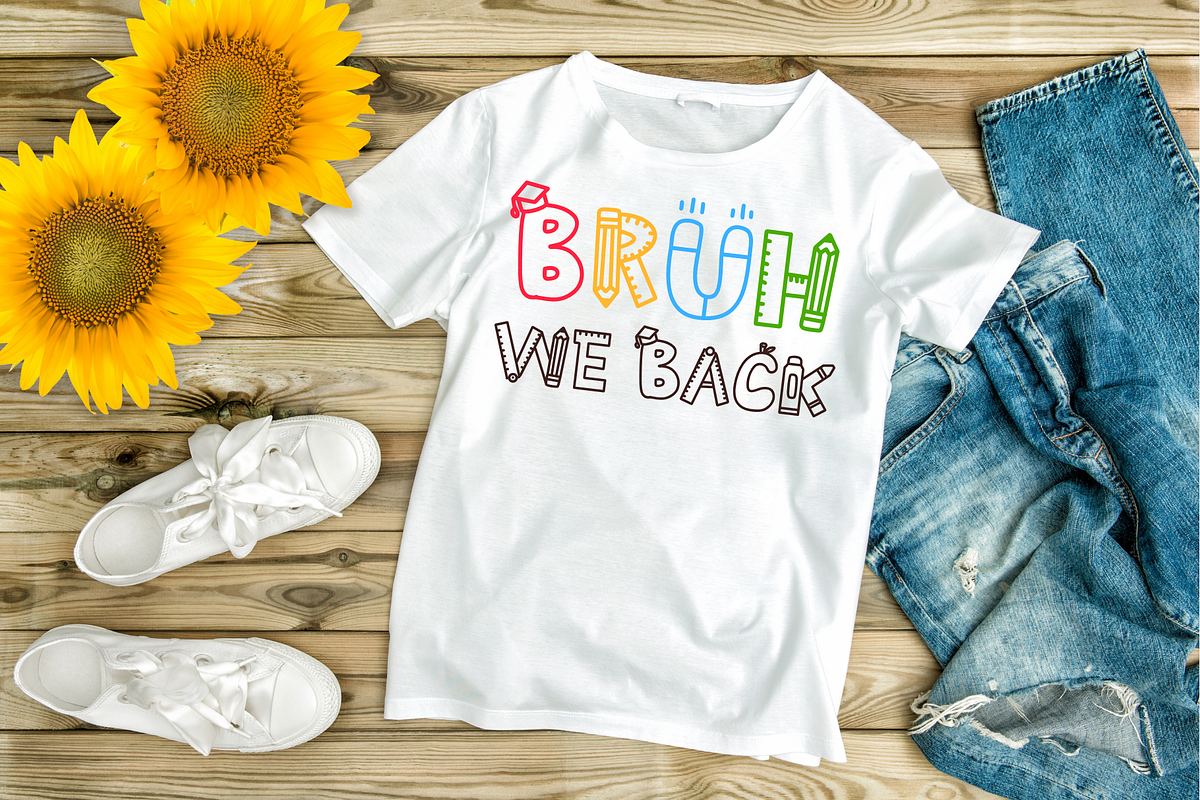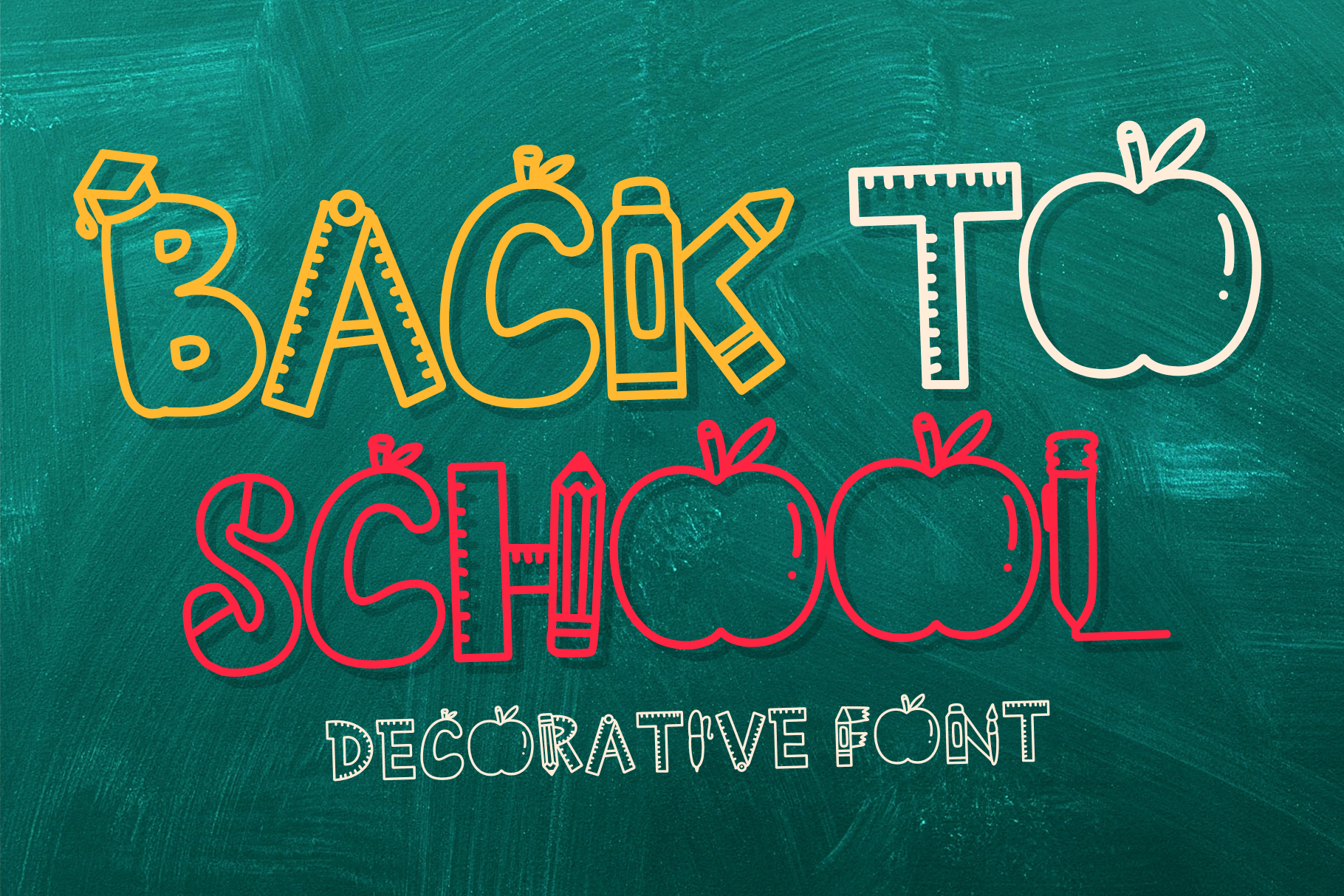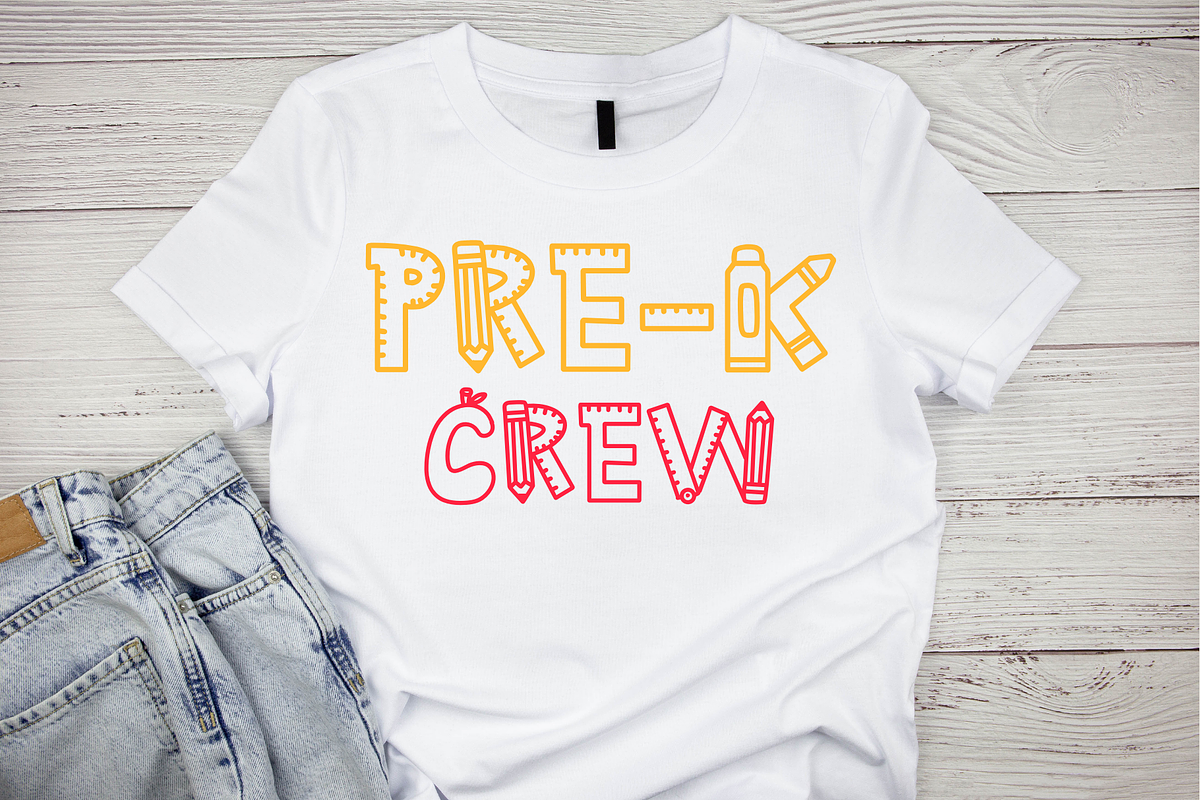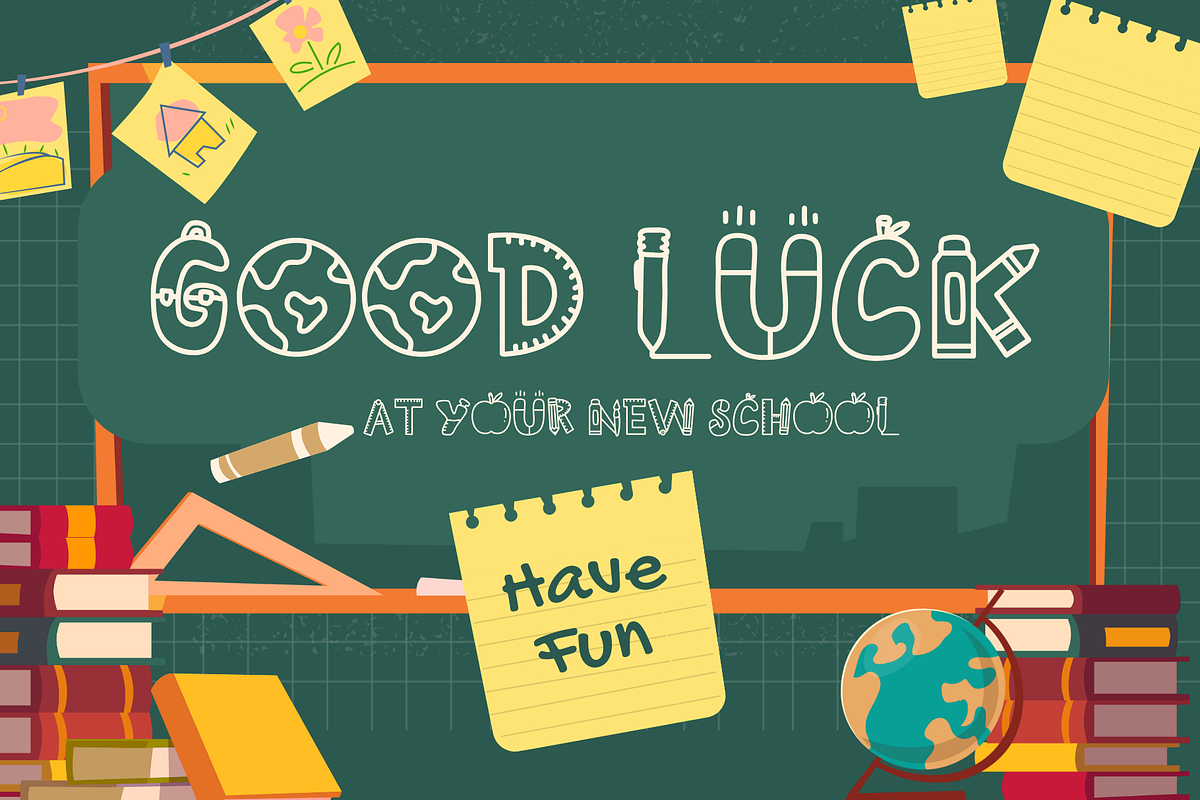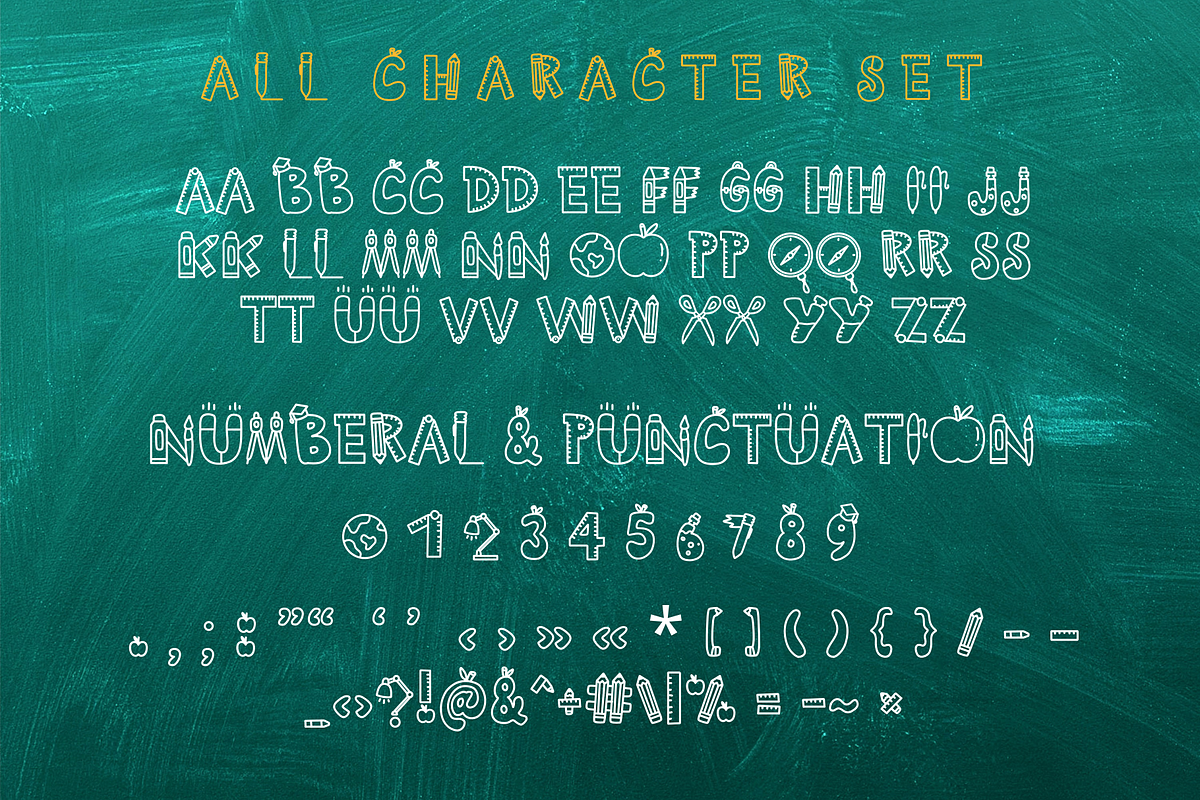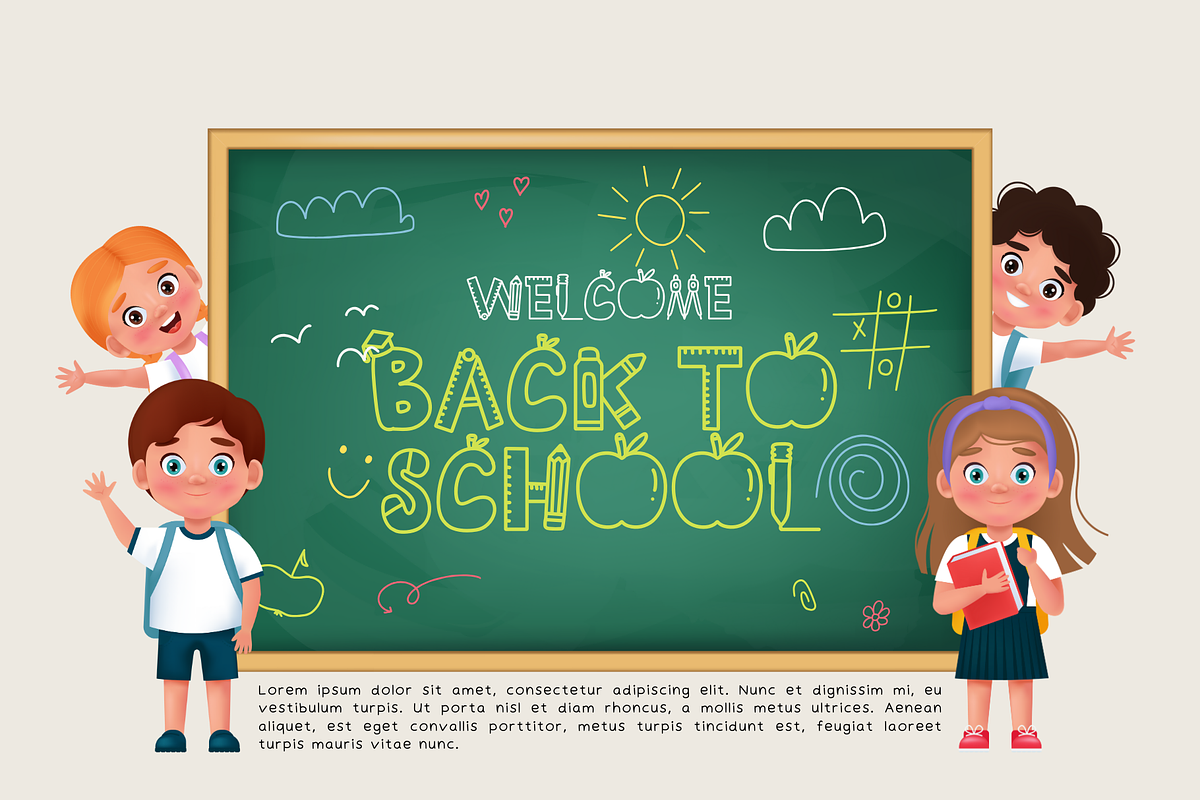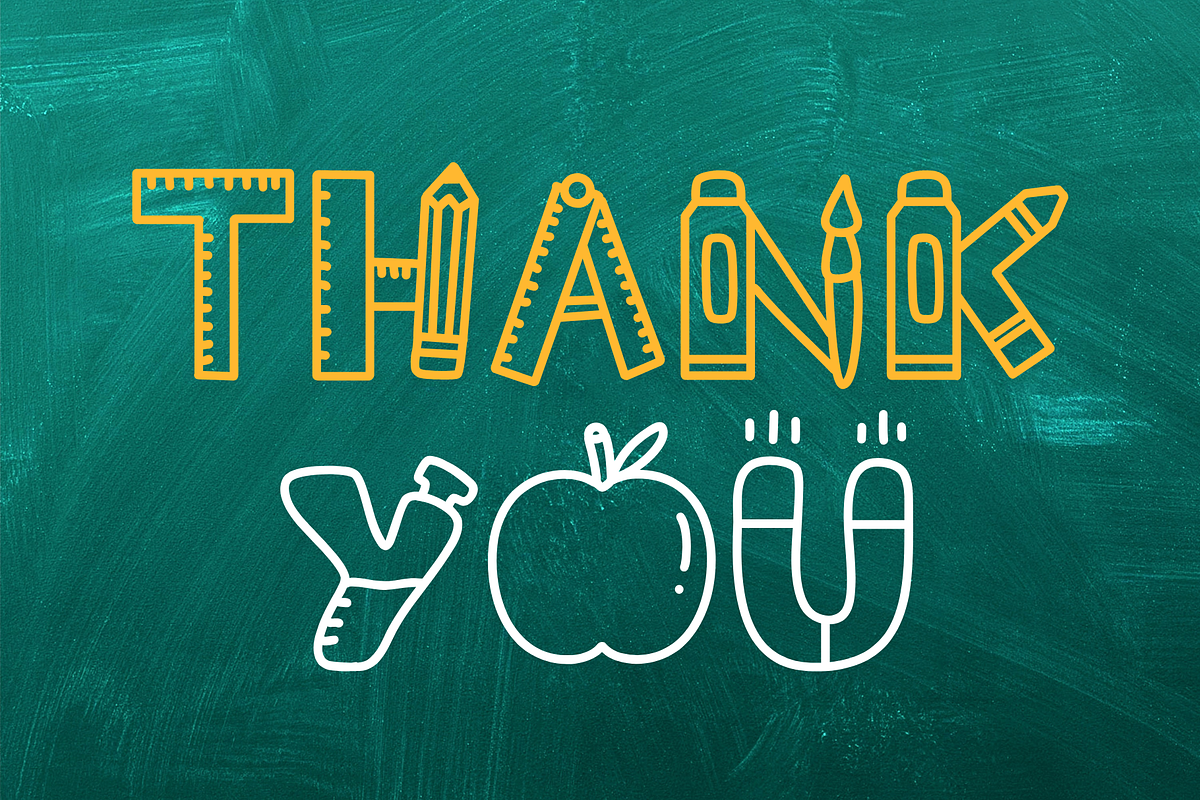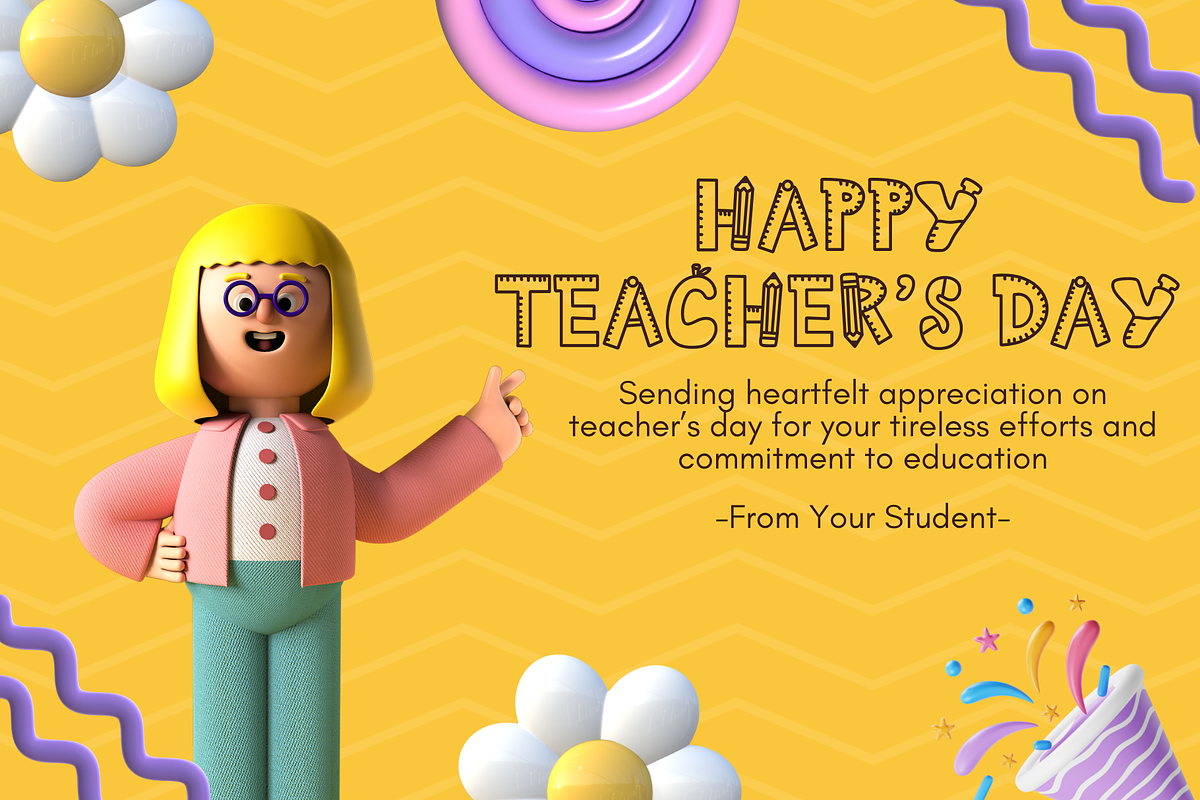
Back To School is a decorative font
Back To School is a cute decorative font. It embodies playfulness and authenticity and is the perfect choice for all your favorite projects, or even for blog posts, logos, branding, ads, invitations, greeting cards, planners, photo albums, decorations, and much more. Add it to any of your designs, and enjoy the results!